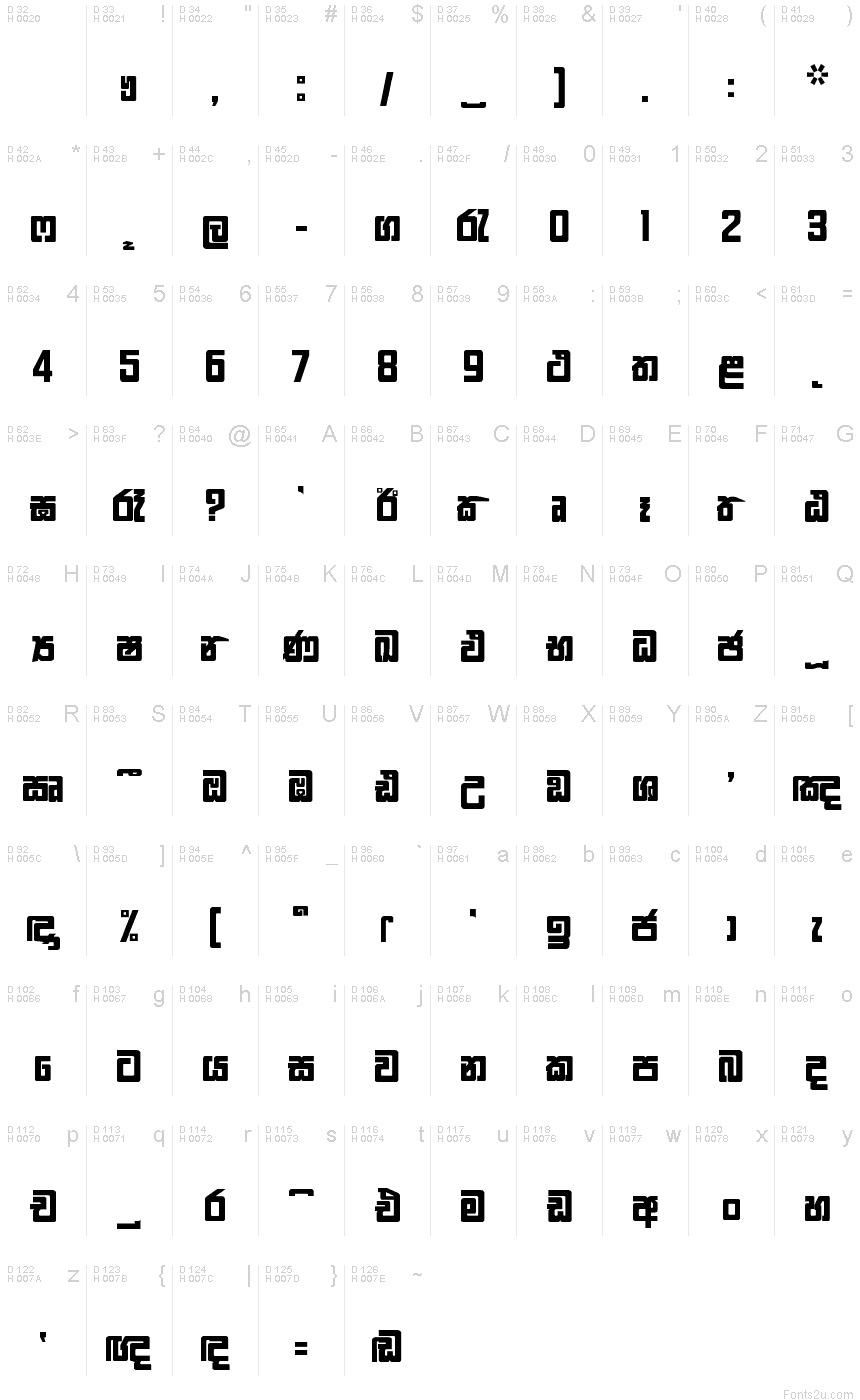
FM Gemunu x by Pushpananda Ekanayaka is a free Sinhala display font with a dense, block-built silhouette. Its letters use broad rectangular strokes, squared turns, and compact interior openings, with small cutouts and hooked details breaking up the solid forms.
Designers creating Sinhala-language entertainment graphics can use it for film posters, music artwork, and event branding, where the forceful shapes suit high-impact subjects. It also fits youth-focused merchandise and gaming graphics, especially for audiences drawn to assertive lettering with a distinctly local script identity.